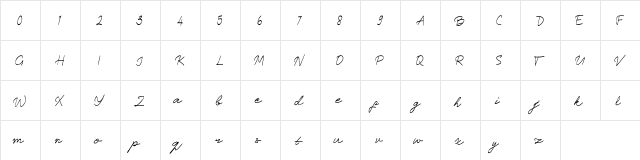
Kalko_script Regular
Design Context for Kalko_script Typeface
Kalko_script brings a calligraphic fluidity to the page — its connecting strokes and expressive curves give it an unmistakably human quality.
Font Pairing: Combine Kalko_script with a simple geometric sans for maximum contrast — the tension between flowing curves and clean structure is a classic typographic pairing.
Pro Tip: Use Kalko_script for short runs of text — names, titles, or taglines. Extended body copy in script faces tires the eye quickly.